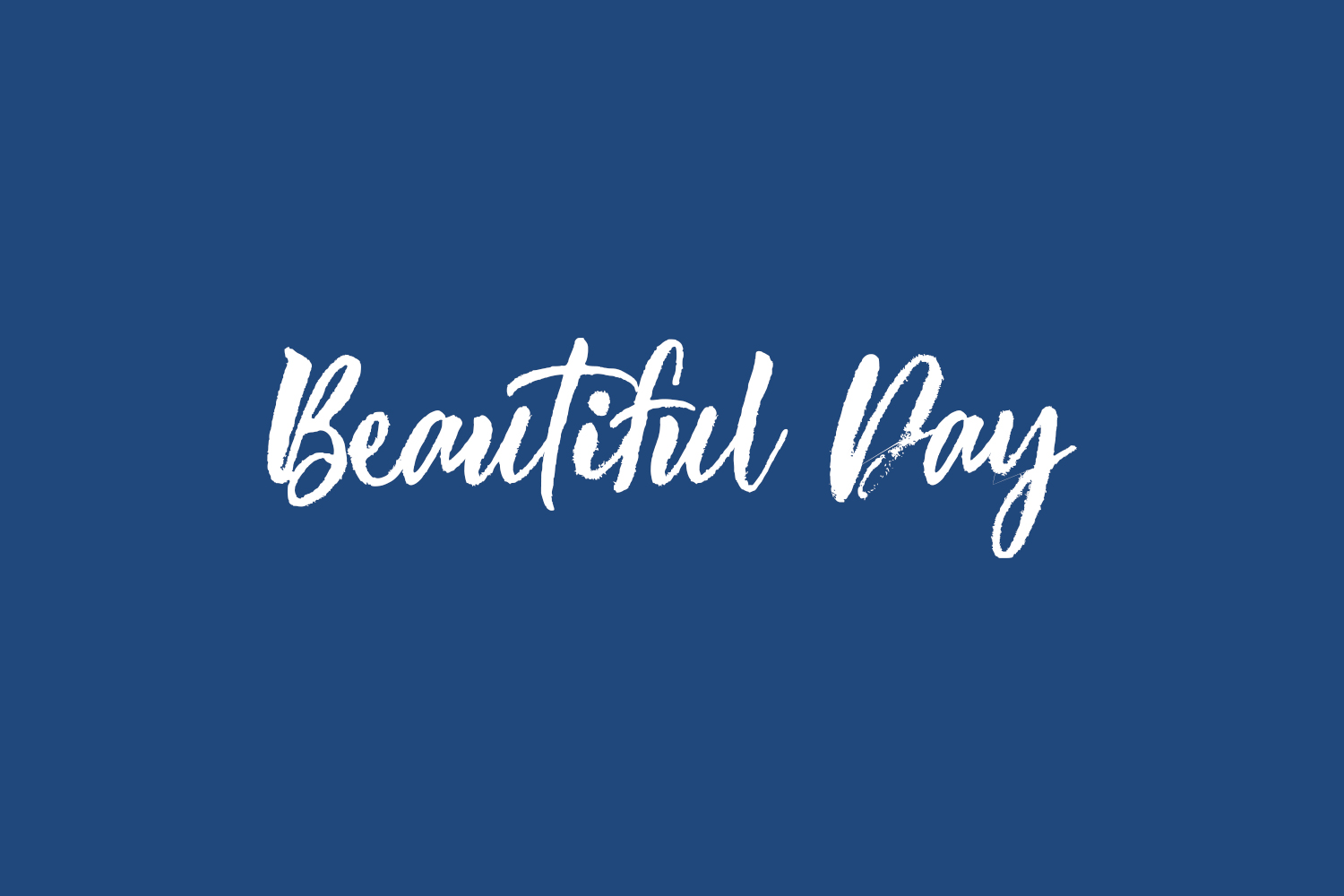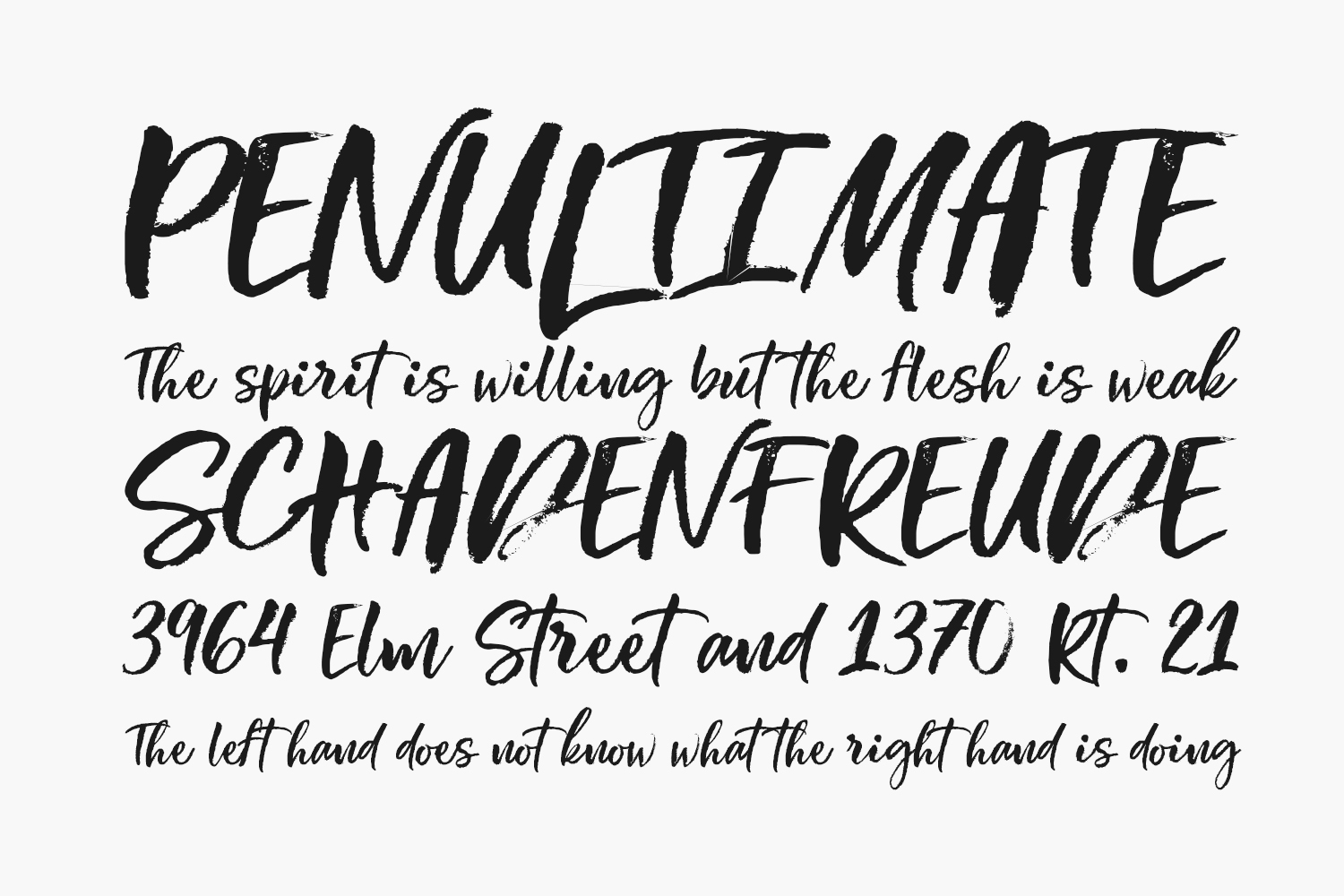
Beautiful Day Free Font Family is a stunningly elegant brush typeface that is perfect for almost every design you wish to create. This font comes with a bonus font file containing a collection of catchwords, doodles, borders, and a wide array of swashes that you can incorporate into your design. Beautiful Day Free Font Family was designed by Ikiiko type and is free for personal use only.
Beautiful Day Regular The quick brown fox jumps over the lazy dog
Beautiful Day Extras The quick brown fox jumps over the lazy dog